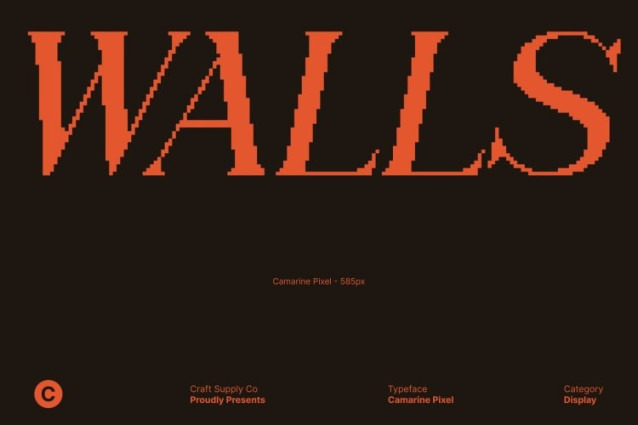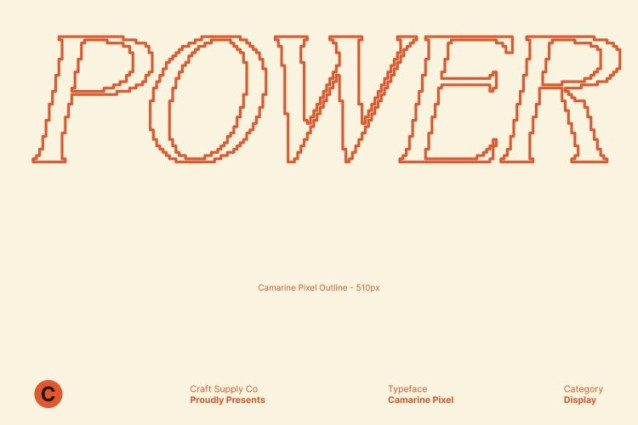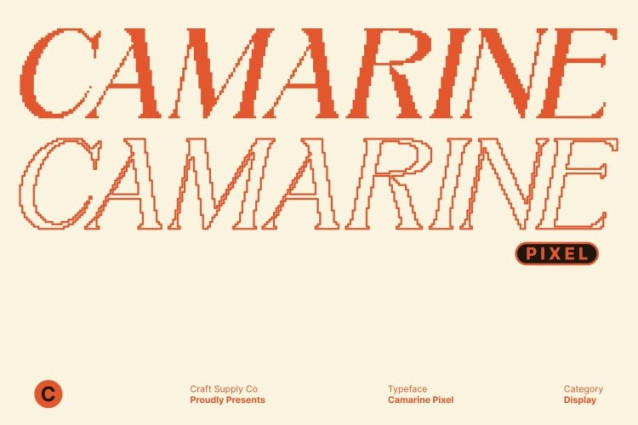
Camarine Pixel Font
Camarine Pixel Font This is a modern serif typeface inspired by the refined aesthetics of high-end editorial design. Drawing from the sophistication of fashion magazines and contemporary publications, it delivers a polished and elegant presence while introducing a subtle pixelated structure that adds a modern digital nuance.
Contemporary Allure
With its clean lines and balanced proportions, this font exudes contemporary allure. The combination of classic serif elegance and pixel-precise construction creates a sleek, stylish appearance perfect for projects that demand a modern, forward-looking visual identity.
Versatile and Sophisticated
Designed to balance beauty and functionality, adapts effortlessly across a wide range of design contexts. From editorial layouts and branding to digital platforms and promotional materials, it maintains a timeless sophistication without sacrificing clarity or impact.
A Modern Design Statement
This is more than a typeface it’s a statement of modern relevance. Each character reflects precision, elegance, and contemporary style, making it an impressive choice for designers seeking a refined serif font with a distinctive pixel-inspired edge.